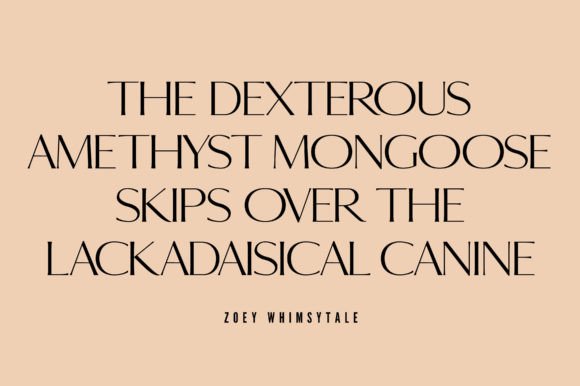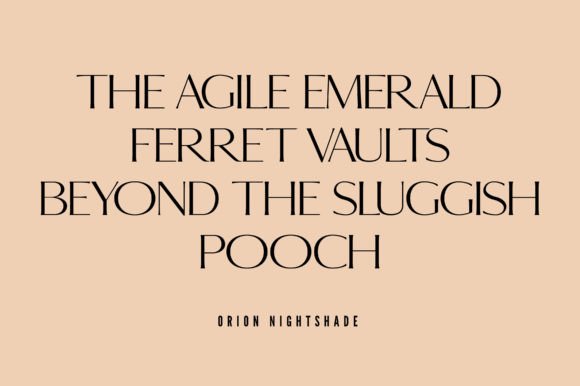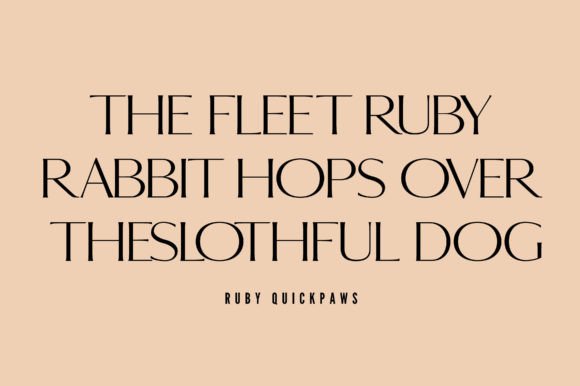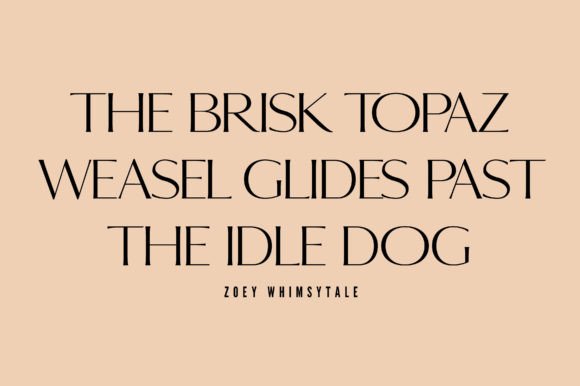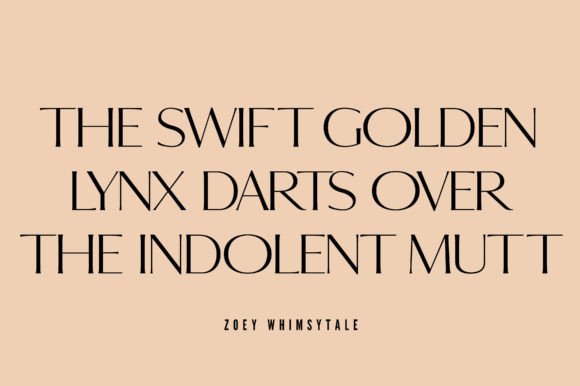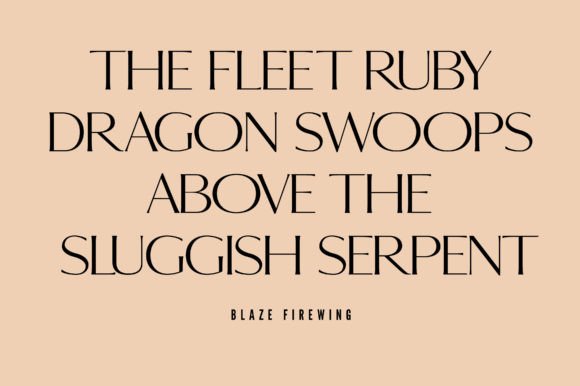
Discover the Timeless Elegance of Aimer Font
As a designer, have you ever found yourself staring at a blank canvas, searching for the perfect font to bring your vision to life? It’s a feeling many of us can relate to. But what if that perfect font was right in front of you, waiting to elevate your designs to new heights? Enter Aimer Font, a minimalist masterpiece that embodies the essence of modern elegance.
Aimer Font is more than just a typeface – it’s a key to unlocking a world of sophistication and refinement. With its clean lines, balanced strokes, and impeccable kerning, Aimer Font is the perfect companion for designers seeking to create luxurious branding, captivating headlines, and more. Its versatility and timeless charm make it an invaluable addition to any design arsenal.
Aimer Font Key Features
- Font Family: Aimer Font is a sans-serif font family designed for modern and clean typography. It comes in 6 weights (Thin, Light, Regular, Medium, Bold, and Black).
- Unique Characteristics: Aimer Font features a unique blend of geometric and organic shapes, giving it a distinctive and modern look.
Aimer Font Review
I recently had the chance to work with the Aimer Font, and I’m excited to share my honest review with you. Here’s what I think:
Beautiful, elegant design: The Aimer Font has a stunning aesthetic that’s perfect for creating a sophisticated look.
Highly legible: The font is incredibly easy to read, making it perfect for body text or headings.
Perfect for modern designs: The Aimer Font is ideal for contemporary designs, from websites to magazines and more.
Limited expressiveness: While the font is beautiful, it’s not particularly expressive or emotive, which might limit its use in certain contexts.
No bold or italic options: If you’re looking for a font with bold or italic versions, you might be disappointed with the Aimer Font.
The Aimer Font is a stunning, elegant font that’s perfect for modern designs. While it may have some limitations, its beauty and legibility make it a great choice for a wide range of projects. I’d definitely consider using it again in the future.
Use Aimer Font for titles, headings, and body text to create a consistent and visually appealing design.
Common Use Cases for Aimer Font
Aimer Font is ideal for use in:
Branding and marketing materials, such as logos,